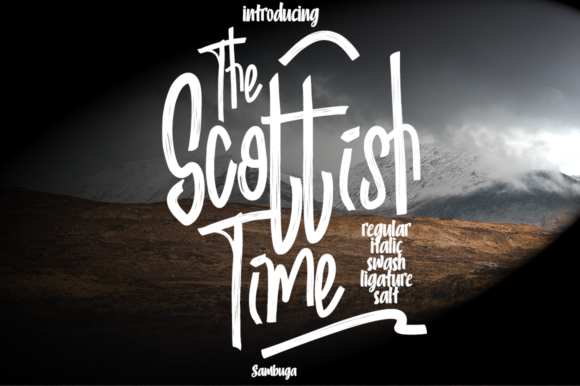
Journey through the vibrant world of Scottish Time font, a captivating script typeface that embodies the untamed spirit of adventure and the charm of the Scottish countryside. Its free-flowing lines and bold brushstrokes evoke a sense of wanderlust, inviting you to embark on a creative expedition like no other.
With Scottish Time, your designs will dance with a touch of the unexpected. Whether crafting logos that demand attention, posters that ignite imaginations, or social media graphics that spark engagement, this font is your passport to a realm of boundless creativity.
Immerse yourself in the distinct character of Scottish Time, a font that whispers tales of wild landscapes and whispers of ancient legends. Its elegant curves and playful flourishes add a dash of intrigue to any project, transforming ordinary words into captivating narratives.
Step into the spotlight with Scottish Time, a font that commands attention without uttering a single word. Its bold strokes and dynamic energy make it the perfect choice for headlines that leave a lasting impression, titles that intrigue, and quotes that inspire.
Unlock the boundless potential of Scottish Time, a font that adapts effortlessly to any creative vision. Its versatility knows no bounds, lending itself seamlessly to branding projects, invitations that exude elegance, and wedding designs that capture the essence of love.
Make your designs shine with Scottish Time, a font that radiates confidence and charisma. Unleash your creativity and let your imagination run wild as you craft designs that captivate and enchant. Let Scottish Time be your creative compass, guiding you towards design excellence.